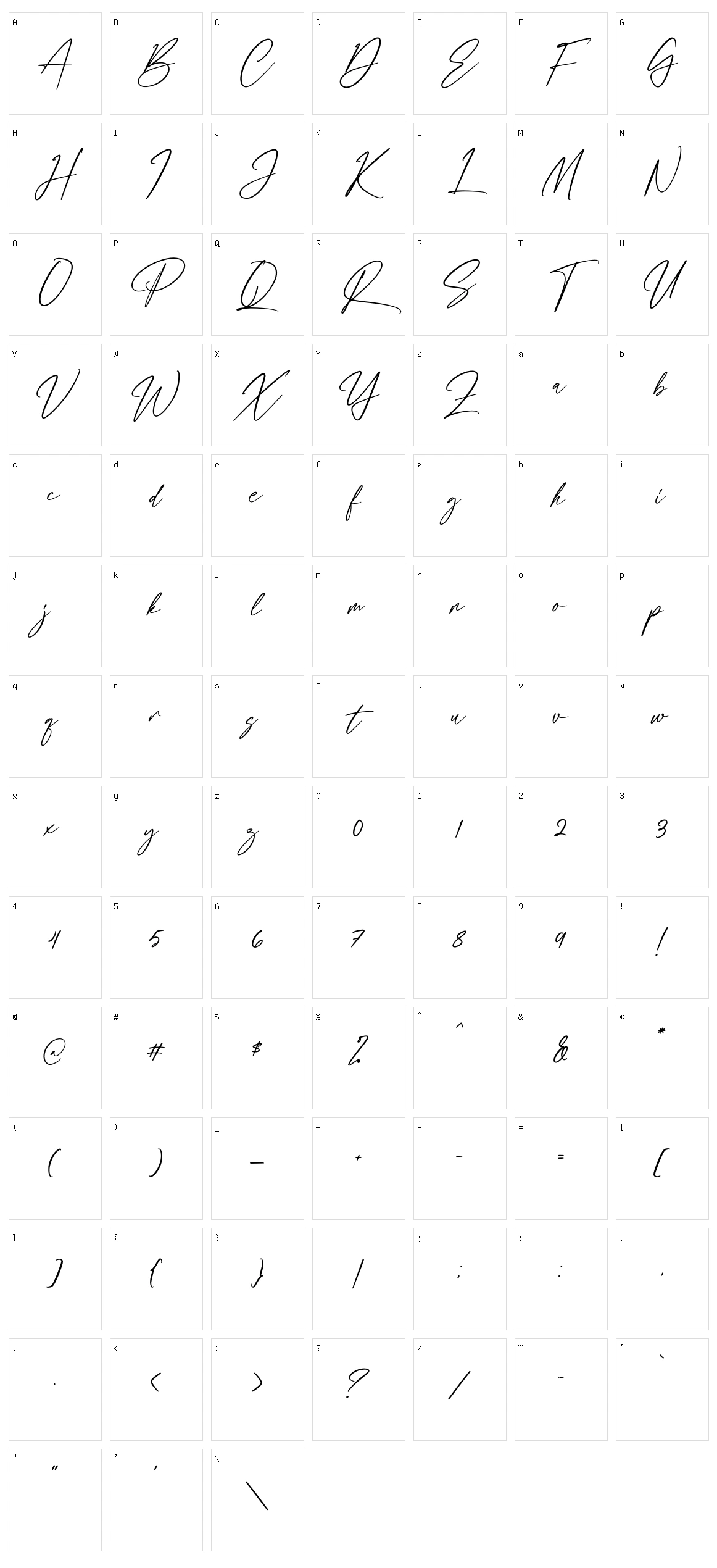
The free font Chemistry is carefully designed by Integritype Studio, showcasing a thoughtful balance of creativity and usability and falls under the Script font style. When you download the ZIP file, it contains only 46.3 KB of font files, making it lightweight and quick to download. Please review the license details below to understand permitted usage and distribution rights. If license information is not available, we recommend using this font for personal projects only or contacting the author directly for commercial usage permissions.